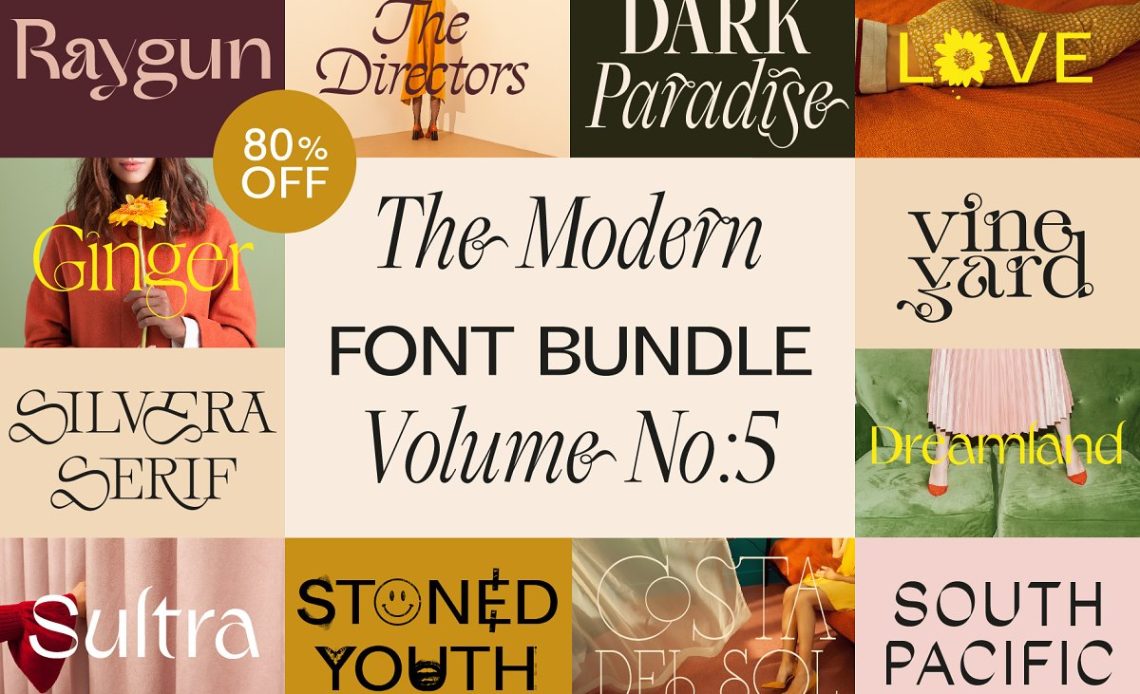
Introducing The Modern Font Bundle Vol.5, the newest and most exciting collection of fonts created by New Tropical Design Studio. This is not your typical bundle of boring fonts. It includes 10 unique and memorable typefaces that are perfect for adding personality and style to your designs. And for a limited time, get 80% off!
This bundle includes a variety of font families, from bold sans serifs to elegant serifs and everything in between. Each font is carefully crafted with loads of alternate letters and ligatures to make it easy for you to level up your type game. You can mix and match these fonts to create stunning designs that stand out from the crowd.
The Modern Font Bundle Vol.5 is perfect for designers who want to create eye-catching designs for their clients or themselves. These fonts are perfect for creating logos, branding, web design, social media graphics, and much more. And with multilingual support, including Polish, you can use these fonts to create designs for clients all over the world.